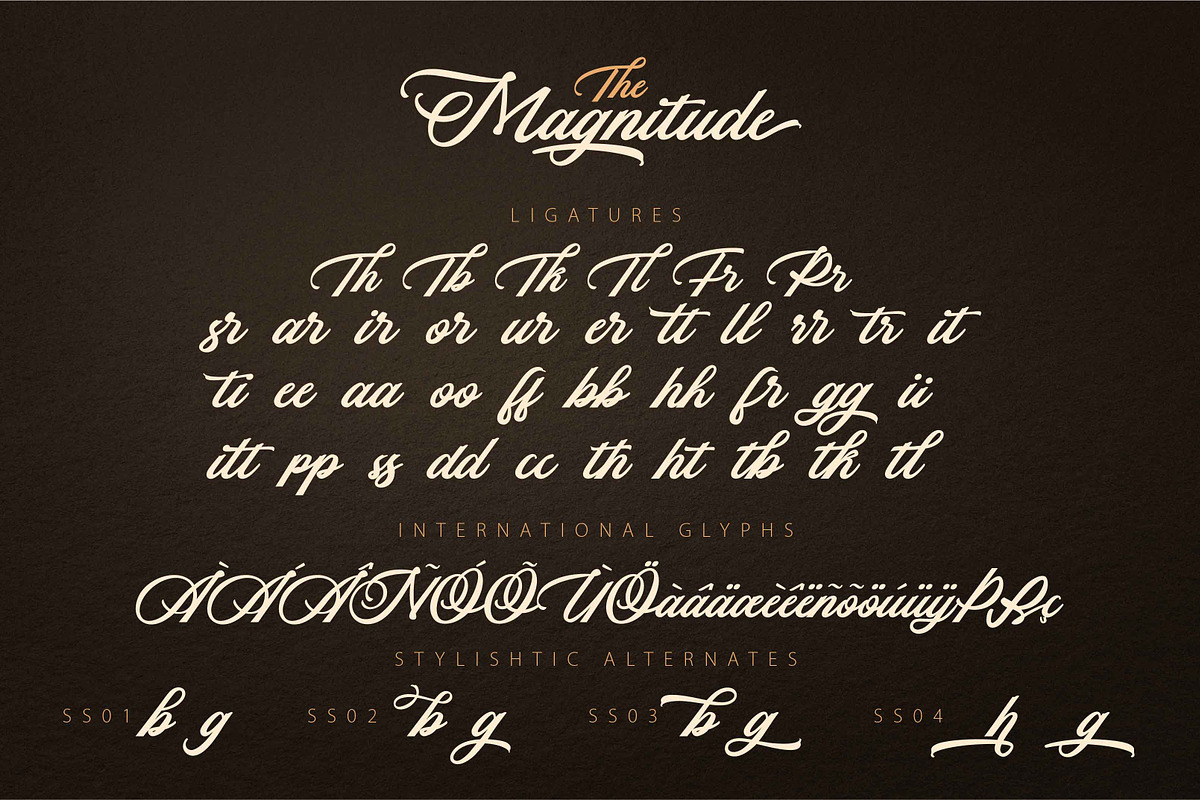
THE MAGNITUDE script
THE MAGNITUDE script is a beautiful Modern Handlettered font Typeface, This Font will look gorgeous on all your designs, wedding invites, branding materials, logo's, t-shirt, poster, business cards, quotes and all project design other.
THE MAGNITUDE script Font contains standard characters, lowercase, Uppercase swash Alternates, Uppercase, numbers, punctuation, ligatures and international glyphs. You will receive OTF, TTF files and WEB FONT.